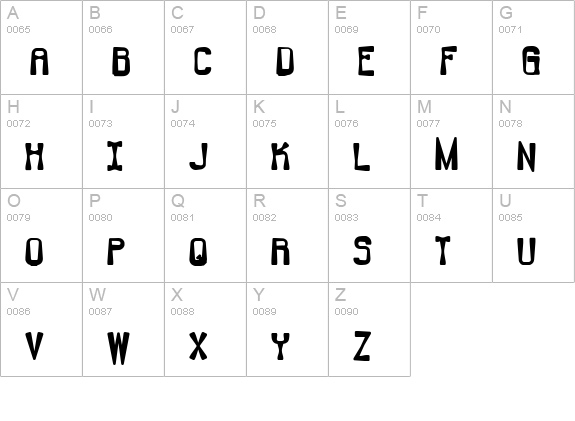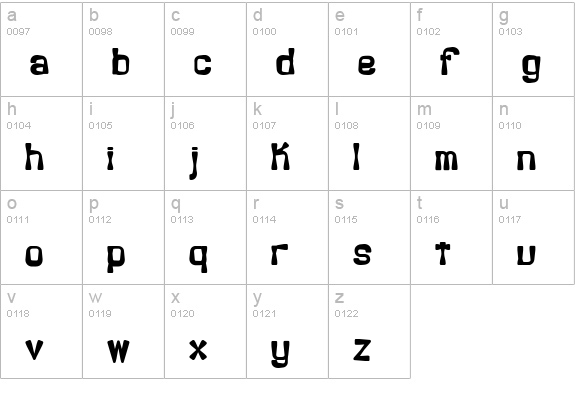
Backlash BRK Font Details
Backlash BRK font is a stunning display typeface that exudes a sense of boldness and sophistication. Its elegant strokes and intricate details make it perfect for creating eye-catching designs and captivating headlines. This font is a true embodiment of creativity and versatility, allowing you to bring your ideas to life in a unique and impactful way. One of the most amazing aspects of Backlash BRK font is that it is available for free! Yes, you read that right. This incredible font can be downloaded at no cost from FontsMarket.com, a leading platform for high-quality fonts. Whether you're a professional graphic designer or a passionate hobbyist, this free font is a valuable addition to your collection. The versatility of Backlash BRK font knows no bounds. It can be used in a wide range of design projects, from logos and branding materials to posters, banners, and social media graphics. Its distinctive style will instantly grab attention and leave a lasting impression on your audience. The attention to detail in Backlash BRK font is truly remarkable. Each letter has been meticulously crafted to ensure a seamless and visually appealing composition. The sharp edges, elegant curves, and unique character variations make this font a true work of art. Backlash BRK font offers a wide range of font weights and styles, allowing you to experiment and find the perfect fit for your design needs. Whether you're looking for a bold and impactful headline or a subtle and elegant body text, this font has got you covered. In addition to its aesthetic appeal, Backlash BRK font is also highly legible, ensuring that your message is easily understood by your audience. Its clear and concise letterforms make it a great choice for both print and digital media. So why wait? Start exploring the endless possibilities that Backlash BRK font has to offer. Download it for free at FontsMarket.com and unleash your creativity like never before. With this font by your side, your designs are guaranteed to stand out from the crowd and make a lasting impact.